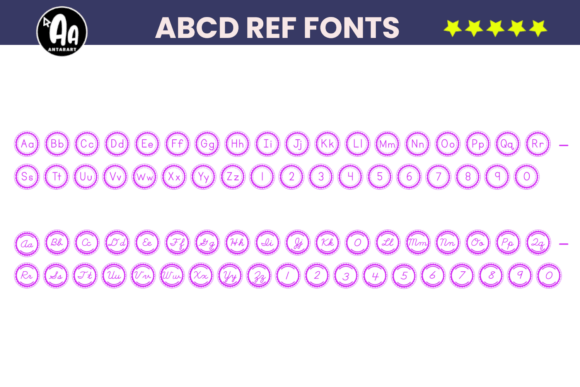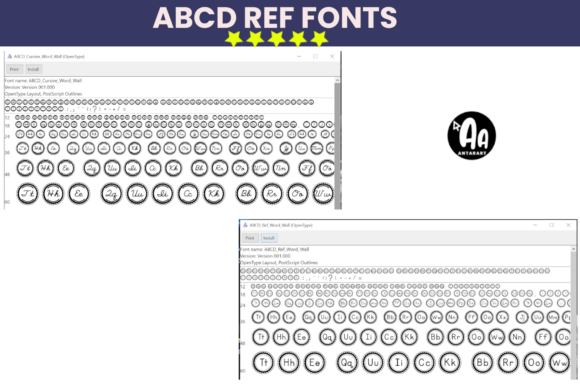
Bringing Learning to Life: The Power of Cursive Word Walls
Remember the excitement of creating a colorful word wall in your classroom, watching your students’ faces light up as they learn and grow together? For many of us, it’s a moment that stands out in our teaching journey – a reminder of the impact that thoughtful design can have on student engagement and learning.
That’s why we’re thrilled to introduce the Abcd Cursive Word Wall Font, a versatile and engaging resource designed to support teachers in creating effective word walls, bulletin boards, and vocabulary learning centers. This innovative font set features both print and cursive alphabet letters, perfect for teaching letter recognition, handwriting styles, and building alphabetical vocabulary. With its customizable design options, the Abcd Cursive Word Wall Font is a valuable tool for designers and educators alike, offering endless possibilities for creative expression and learning.
Key Features of Abcd Cursive Word Wall Font
- Size and Resolution: The font is available in 4 different sizes: 20pt, 30pt, 40pt, and 50pt, with a high-resolution design suitable for printing and digital use.
- Cursive Script: The Abcd Cursive Word Wall Font features a beautiful, connected cursive script with elegant flourishes and subtle variations in letterforms.
- Word Wall Font: The font is specifically designed for use in word walls, displays, and other visual learning tools, with a focus on readability and visual impact.
- Unique Characteristics: The font includes unique letterforms and ligatures that add a touch of personality and whimsy to text, making it perfect for creative and educational applications.
- Multi-Language Support: The font includes a wide range of languages, including Latin, Cyrillic, and Greek scripts, making it suitable for use in international educational settings.
Abcd Cursive Word Wall Font Review
Overall, I found the Abcd Cursive Word Wall Font to be a delightful addition to any design project. Here’s what I loved about it:
- ✨ Unique and elegant design that adds a touch of whimsy to any text.
- ✨ Highly customizable with various font sizes, colors, and styles to suit your needs.
- ✨ Great for creating visually appealing quotes, posters, and social media graphics.
- ⚠️ Limited character set, which may not be suitable for long blocks of text.
- ⚠️ Not ideal for use in small sizes, as the font may become difficult to read.
- ⚠️ Some users may find the font too ornate or distracting, which can detract from the overall design.
Overall, I think the Abcd Cursive Word Wall Font is a great choice for designers who want to add a touch of elegance and personality to their projects. While it may not be suitable for all types of designs, it’s a versatile and effective font that can add a lot of visual interest to your work.
Abcd Cursive Word Wall Font: A Practical Application Guide
Tips for Getting the Most Out of the Abcd Cursive Word Wall Font
Use the Abcd Cursive Word Wall Font to add a touch of elegance and sophistication to your designs.
Pair it with bold or sans-serif fonts for contrast and visual interest.
Experiment with different font sizes and colors to create a unique look.
Use the Abcd Cursive Word Wall Font for:
Wedding and event signage
Personalized gifts and decorations
Alternative Cursive Word Wall Fonts for Designers
Playfair Display is a luxurious, elegant script font ideal for use in headings and titles. It features intricate details and connections between letters, making it perfect for high-end branding, packaging, and advertising.
Compared to Abcd Cursive Word Wall Font, Playfair Display is more sophisticated and formal. While Abcd Cursive Word Wall Font is a simple, child-friendly font, Playfair Display is more complex and suitable for sophisticated designs.
Yes, the Abcd Cursive Word Wall Font is fully editable, allowing you to customize the font to fit your specific design needs. You can use font editing software like Adobe Illustrator or FontForge to modify the font’s characters, spacing, and other attributes.
What is the recommended font size for using the Abcd Cursive Word Wall Font?
The recommended font size for using the Abcd Cursive Word Wall Font is between 18-36 points, depending on the intended use and display resolution. For optimal readability, we recommend using a font size between 24-30 points for most applications.